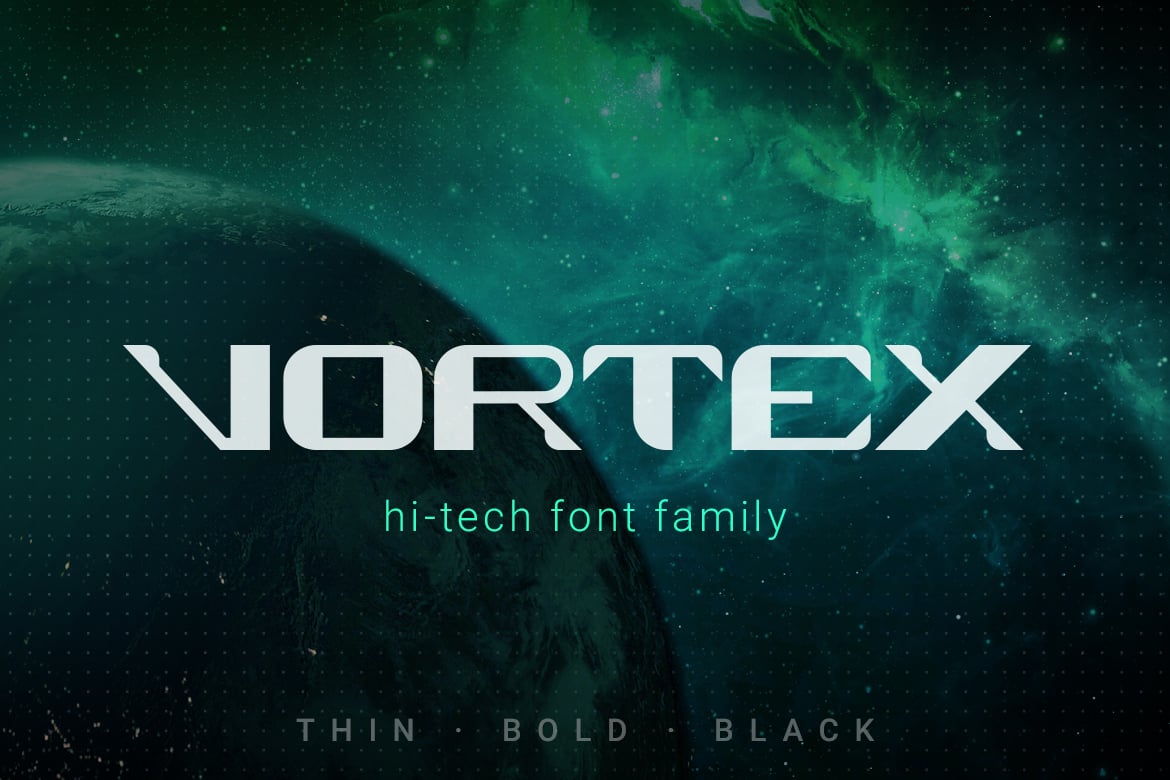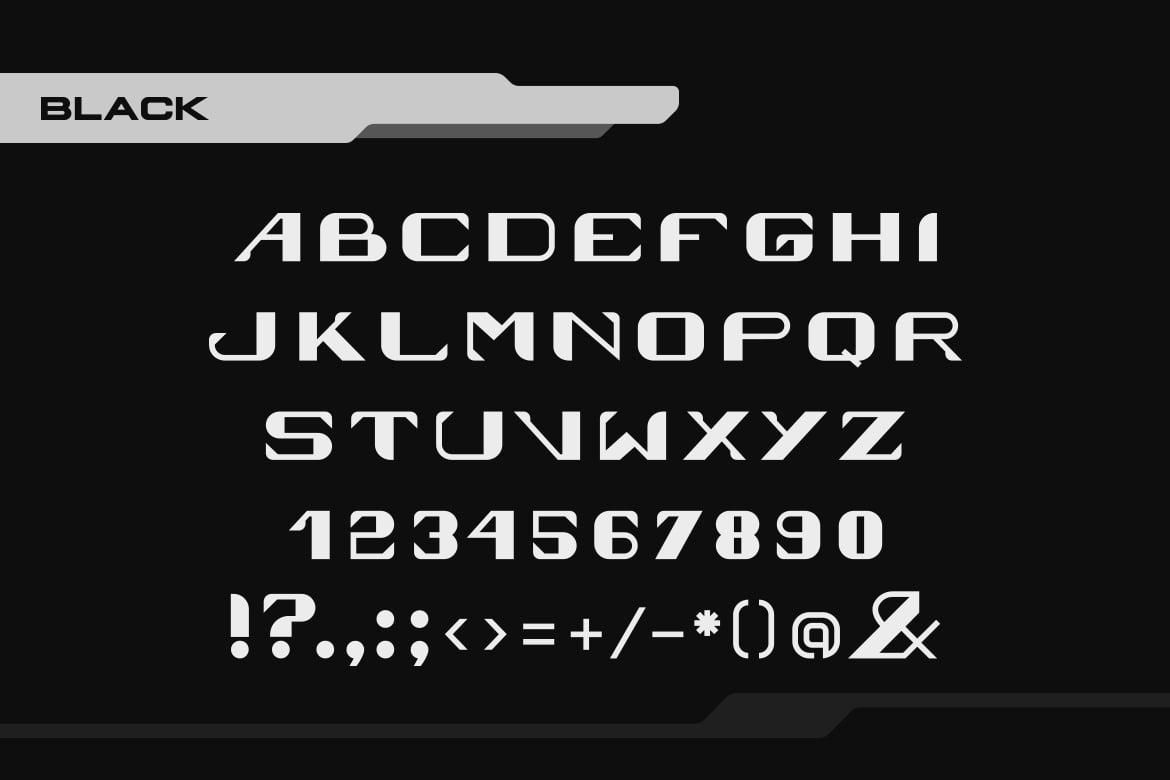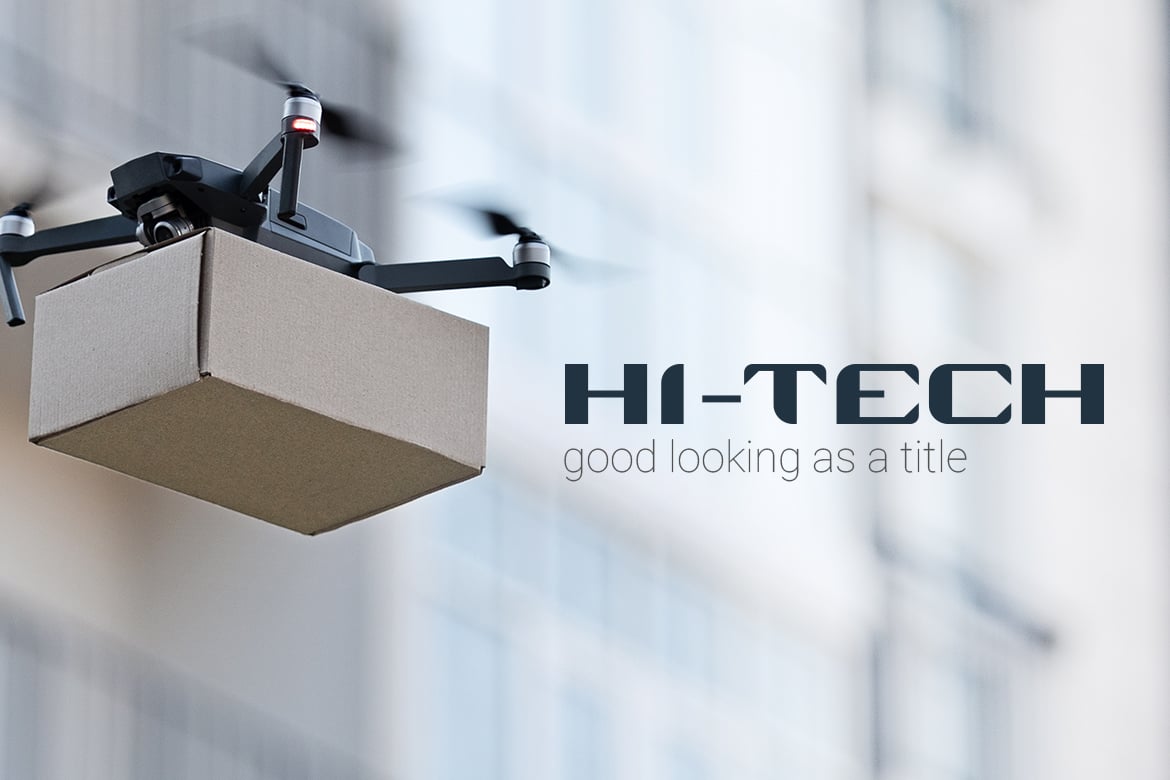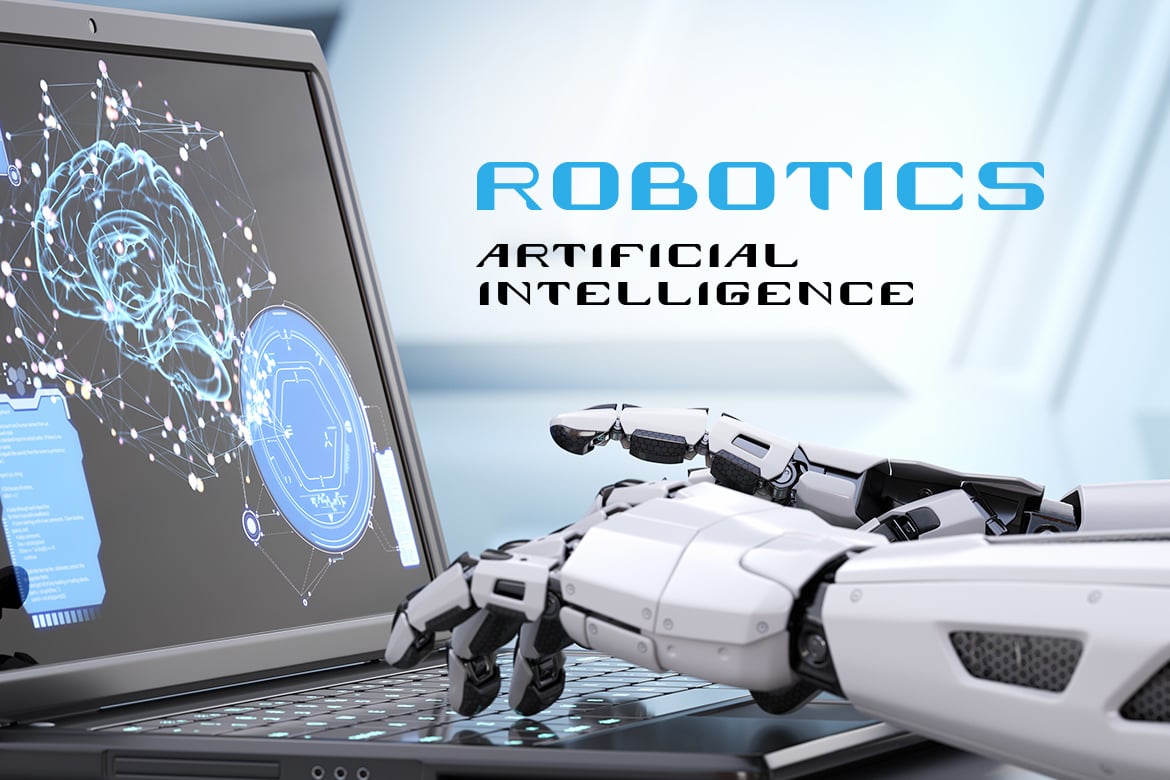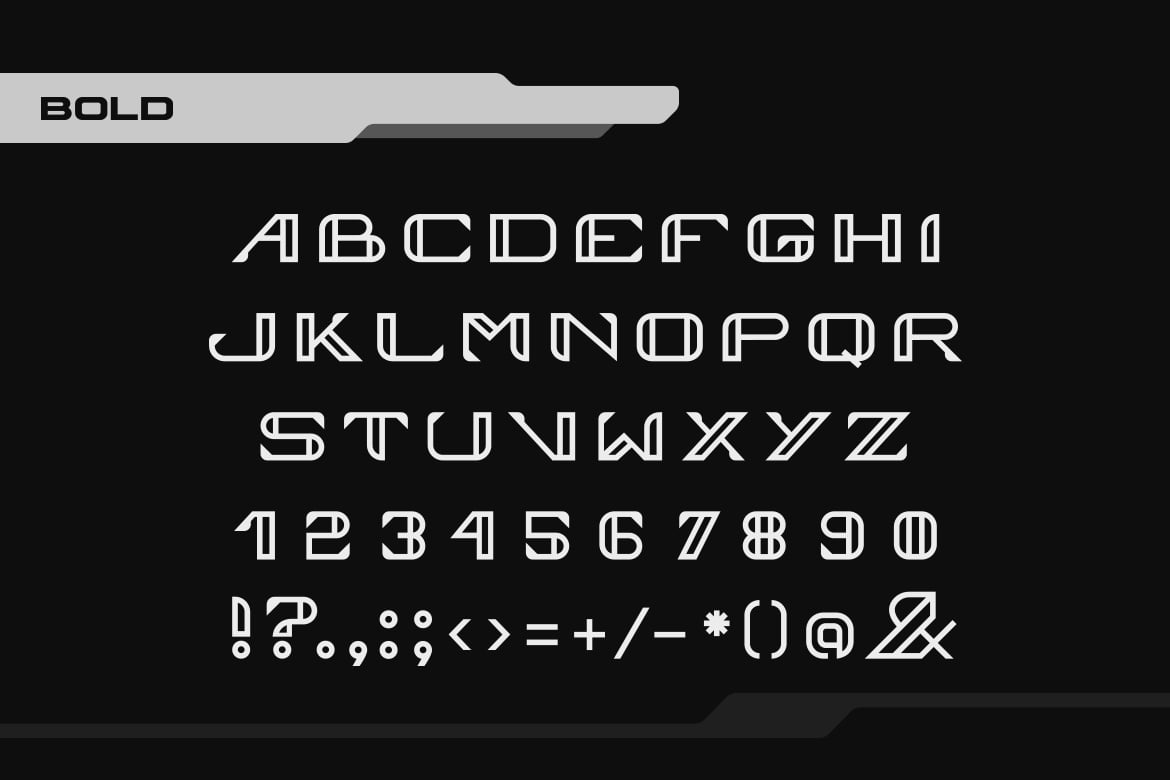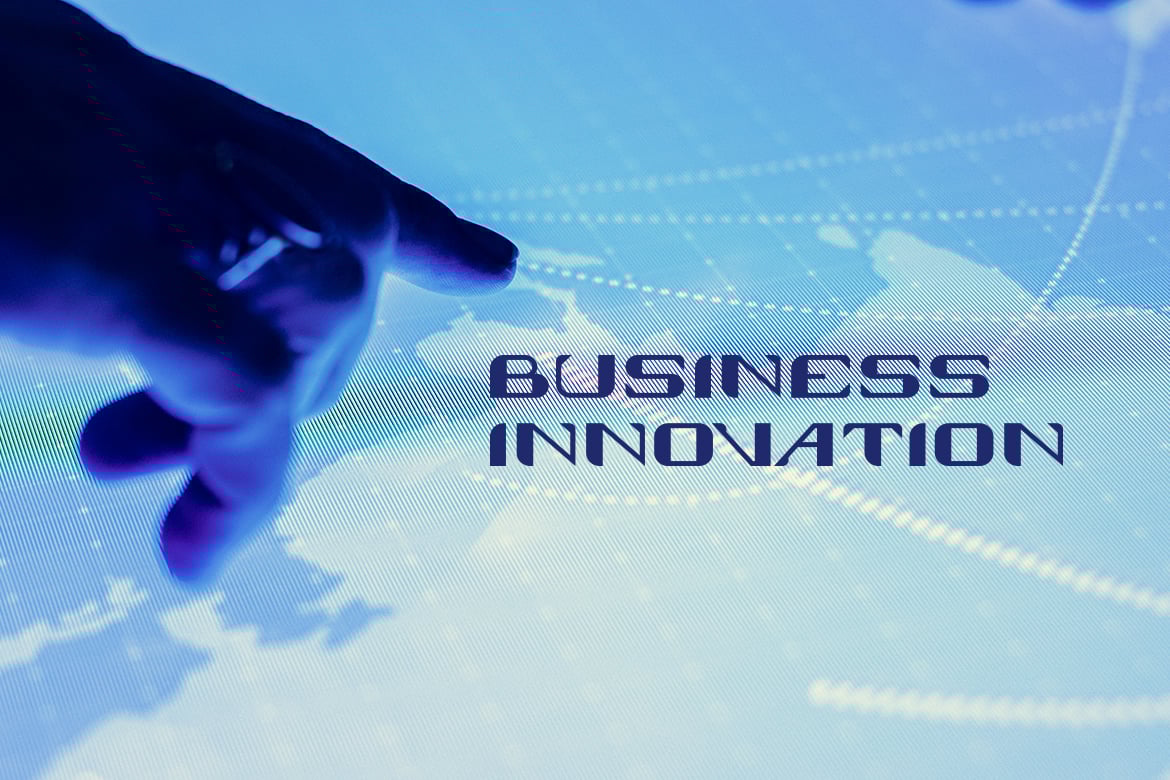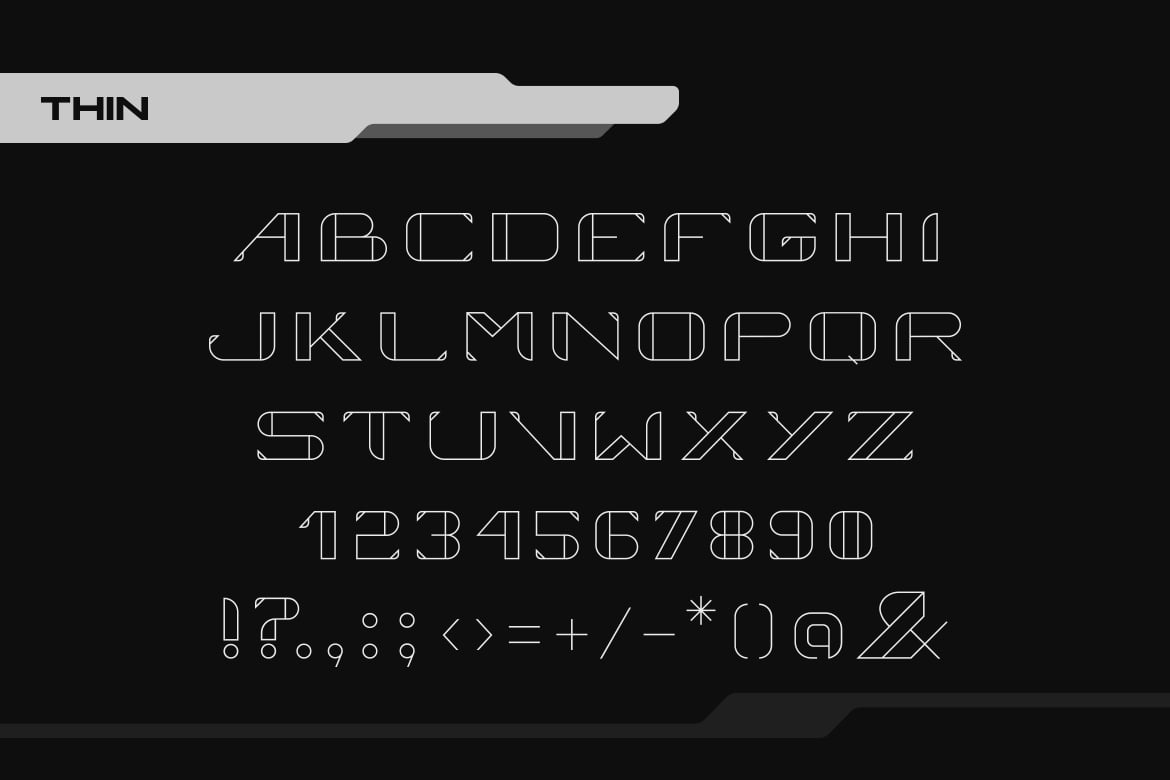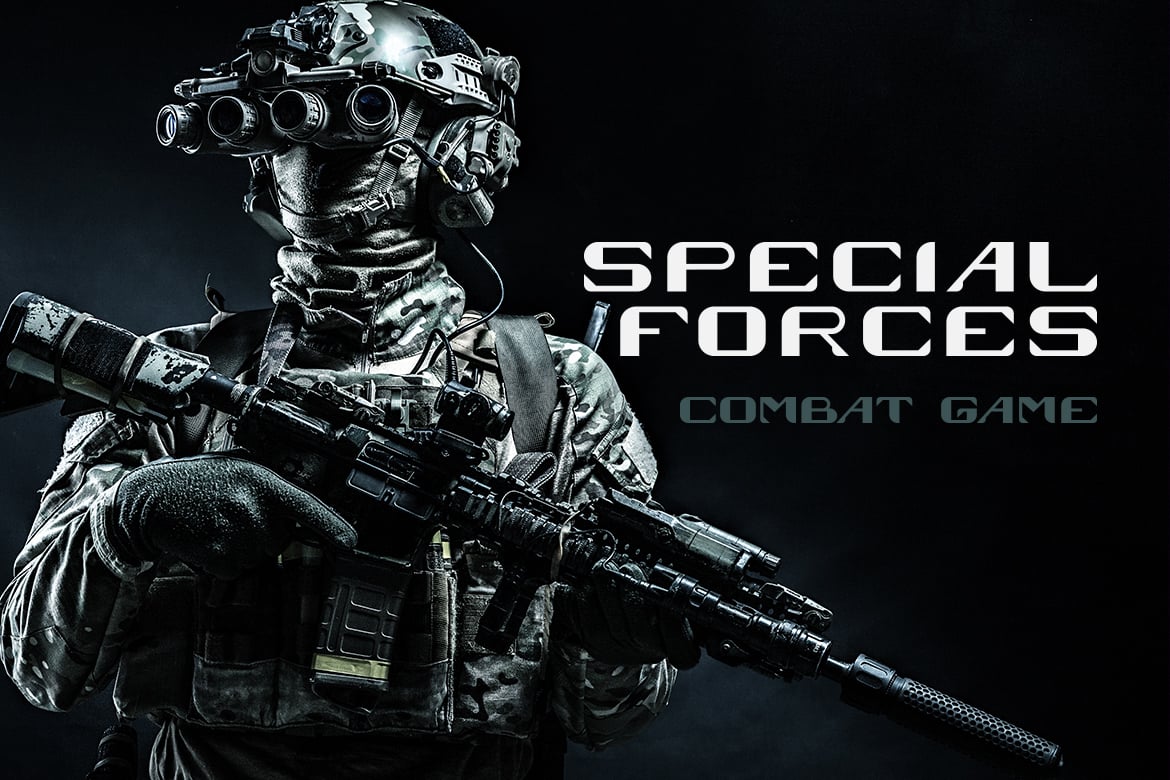
Vortex Technology Sci-fi Future Font
VORTEX is font family which helping to create futuristic hi-tech atmosphere and style. It is good looking as header and as text both. Use it in your projects in such areas as robots&androids, hi-tech, future, virtual reality, space, army, games and many others.
Family consists of three types:
- Thin
- Bold
- Black